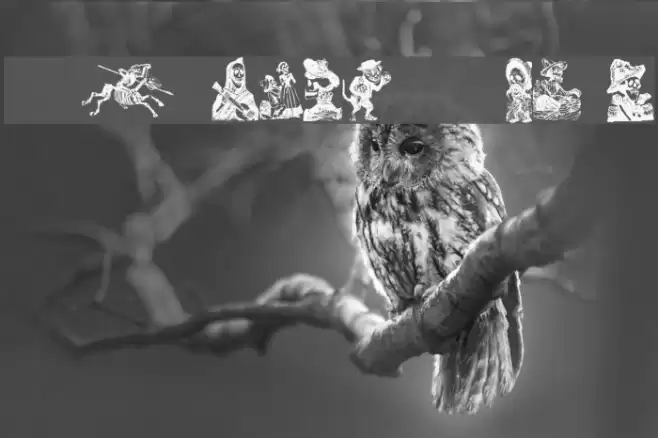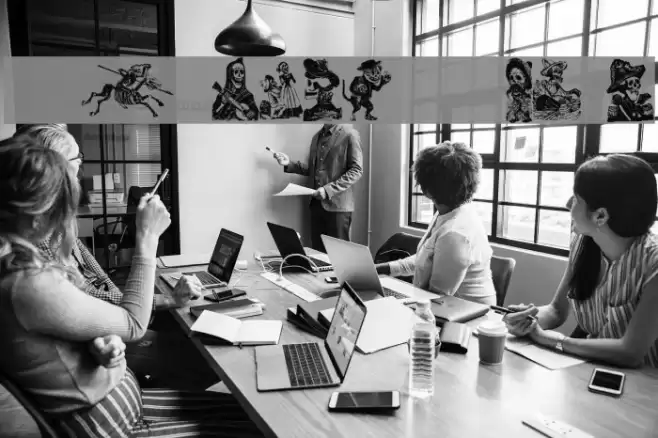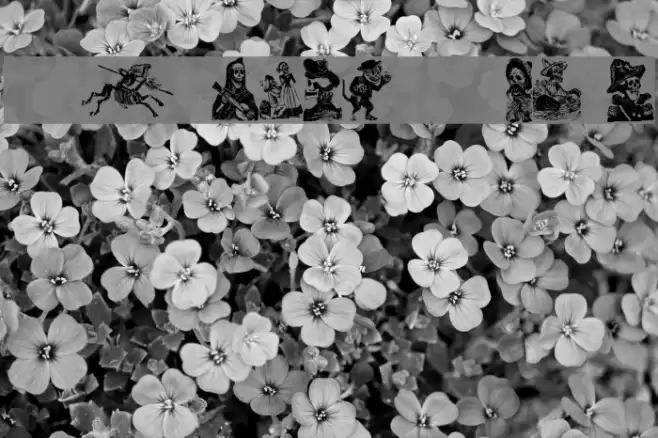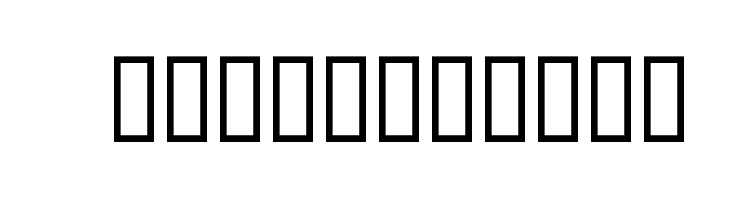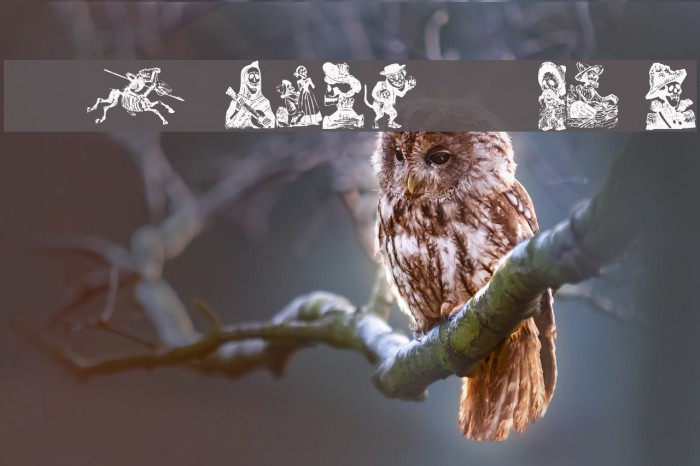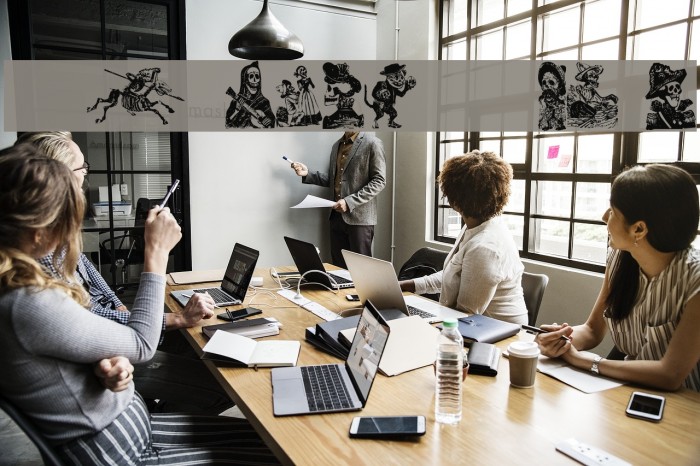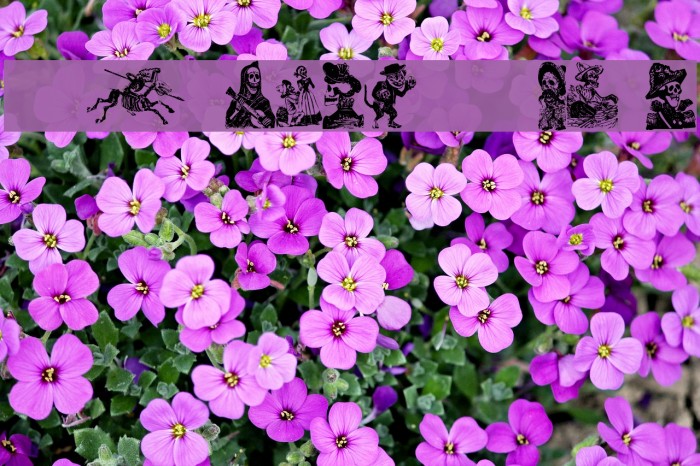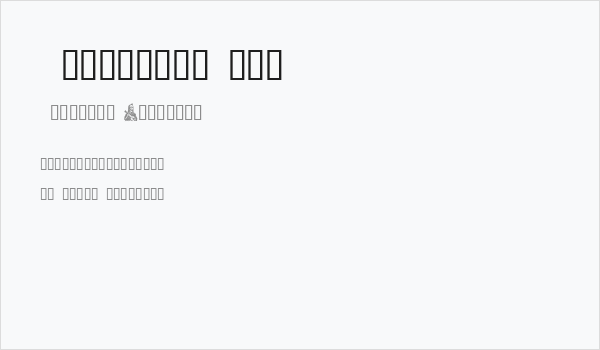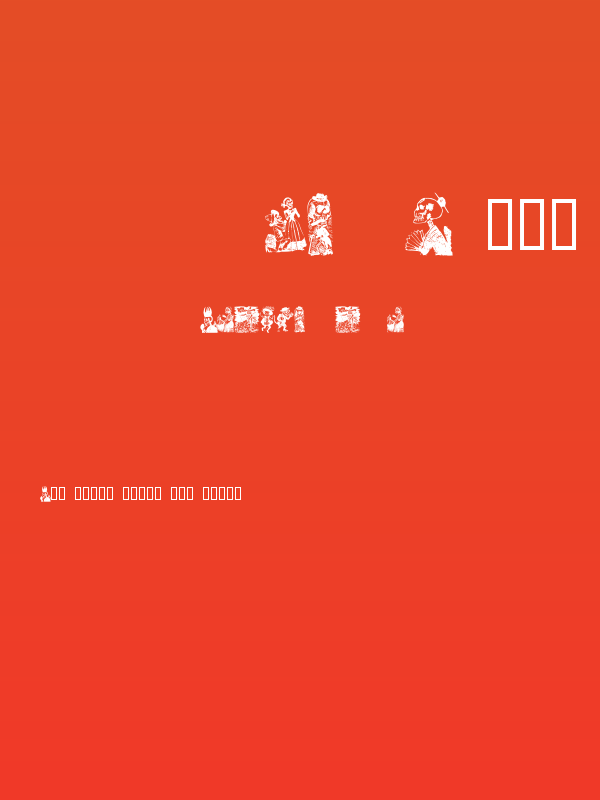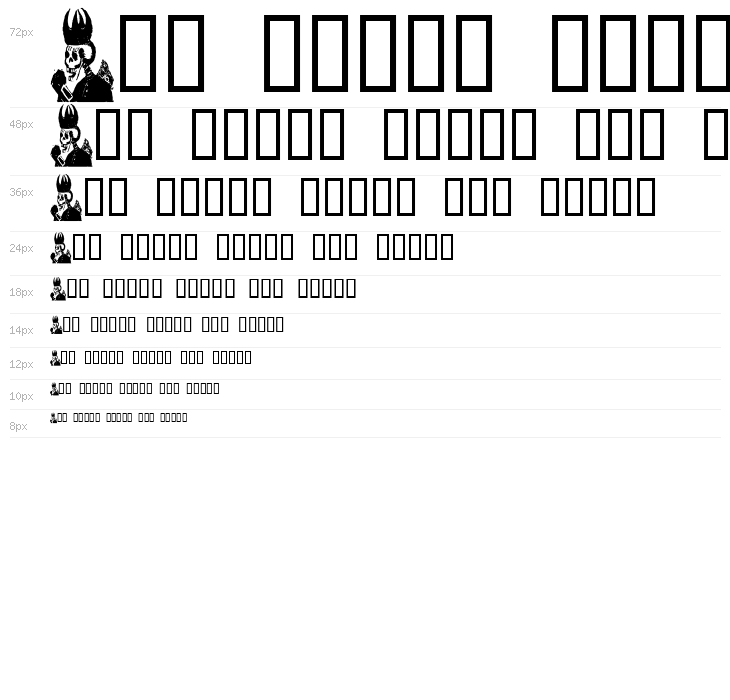
Calaveras 323 Font
Calaveras 323 Description
This font features a series of intricate, whimsical illustrations inspired by traditional Mexican calaveras, often associated with Day of the Dead celebrations. Each character is represented by a unique skeletal figure engaged in various activities, showcasing a playful yet macabre style. The detailed line work and expressive poses of the characters add a lively and festive touch, making it ideal for themed projects that require a cultural or artistic flair. The font does not include traditional alphanumeric characters, focusing instead on these decorative illustrations.
A decorative font featuring whimsical skeletal illustrations inspired by Mexican calaveras from Uncategorized fonts.
- Proposed Projects: Ideal for Day of the Dead themed events, cultural posters, artistic invitations, and educational materials about Mexican traditions.
- Use Case: Logos, Posters, Invitations